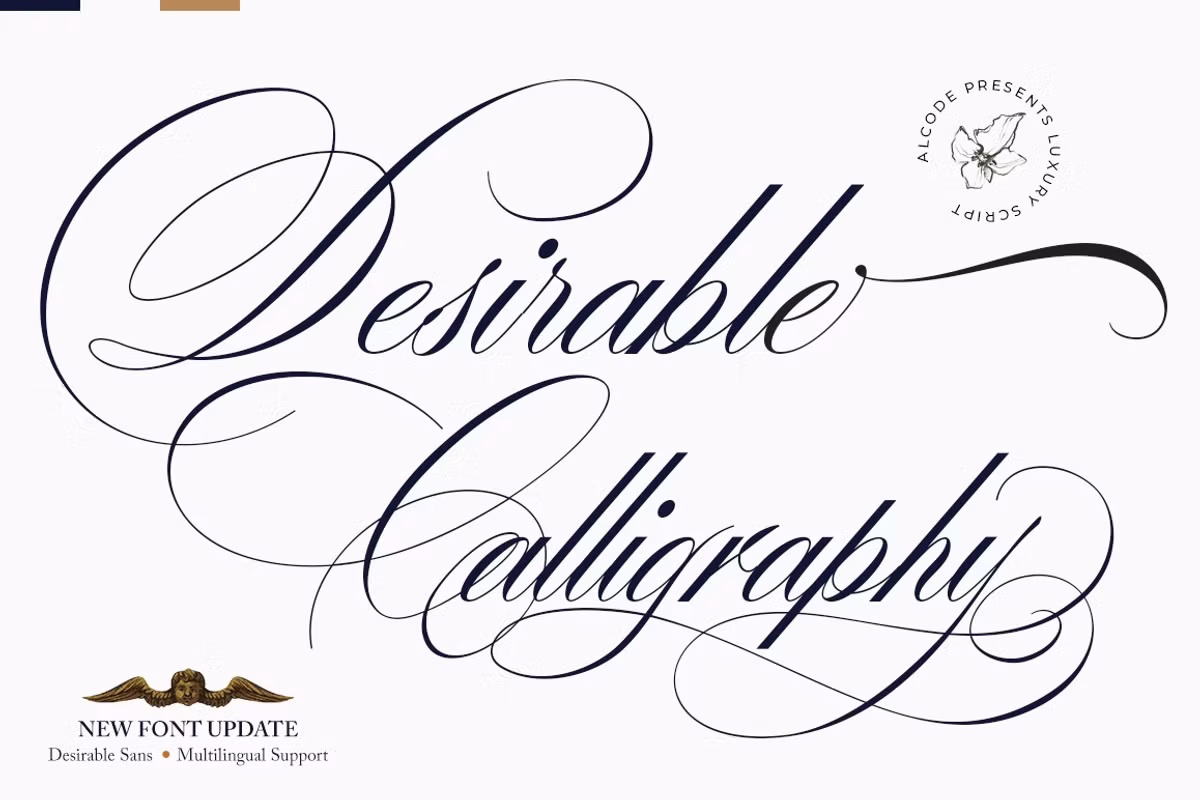
Desirable Calligraphy Free Download
Desirable Calligraphy Font Free Download
The Desirable Calligraphy Font Free Download is an elegant and graceful script font that adds a personal and sophisticated touch to your designs. With its flowing curves and beautiful letterforms, this font is perfect for creating custom logos, invitations, greeting cards, branding materials, and more. The Desirable Calligraphy Font combines classic calligraphy style with modern design, making it ideal for both formal and creative projects. Whether you're working on wedding invitations, luxury branding, or personal projects, this font will give your typography a timeless, refined appearance. Please note, for commercial use, a license purchase is required. However, you can easily download the Desirable Calligraphy Font Free Download for free for personal use and explore its artistic beauty. Download the Desirable Calligraphy Font Free Download today and elevate your designs with its sophisticated and elegant calligraphic style.